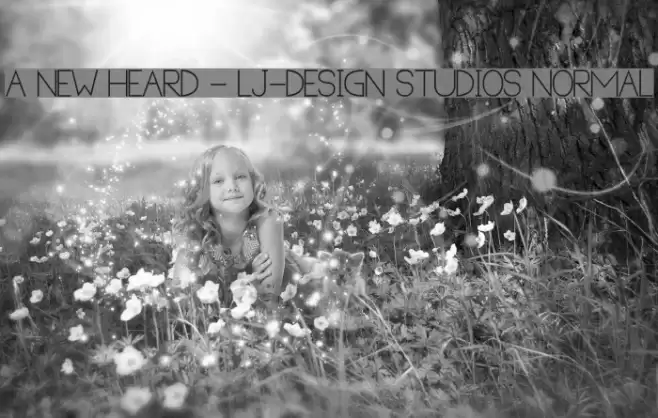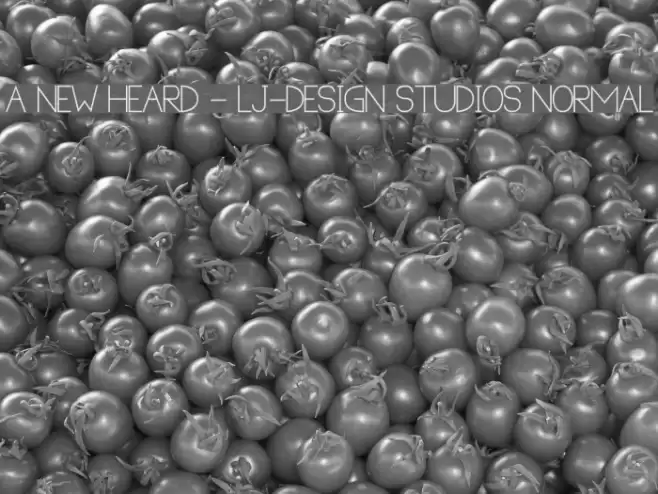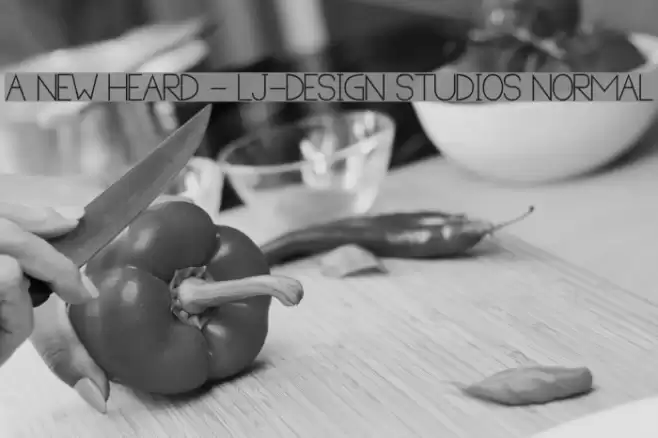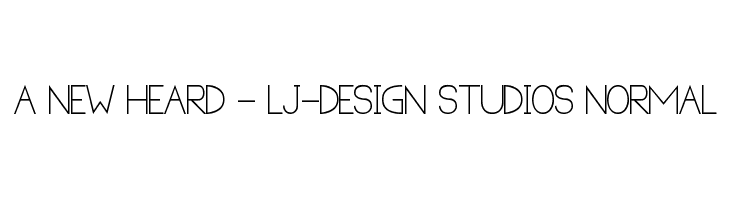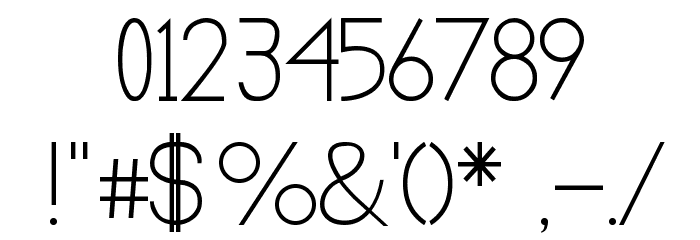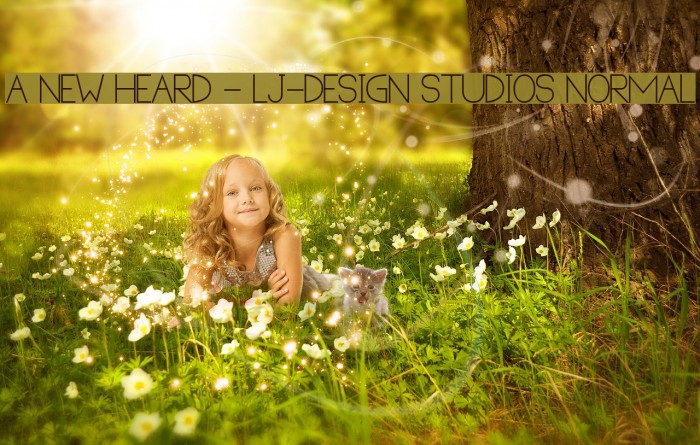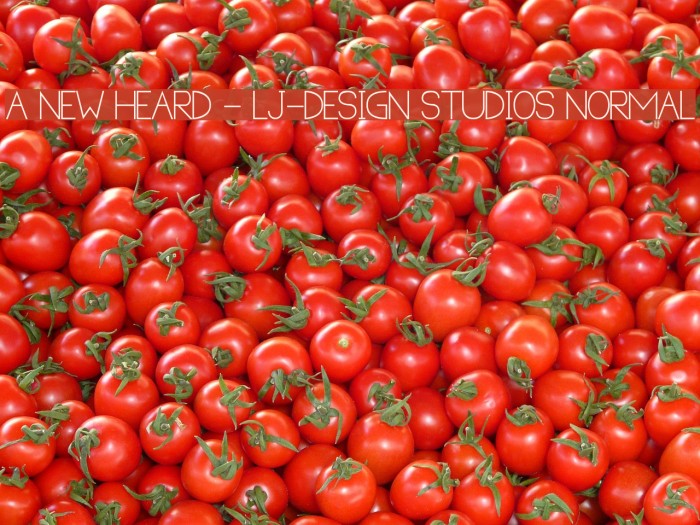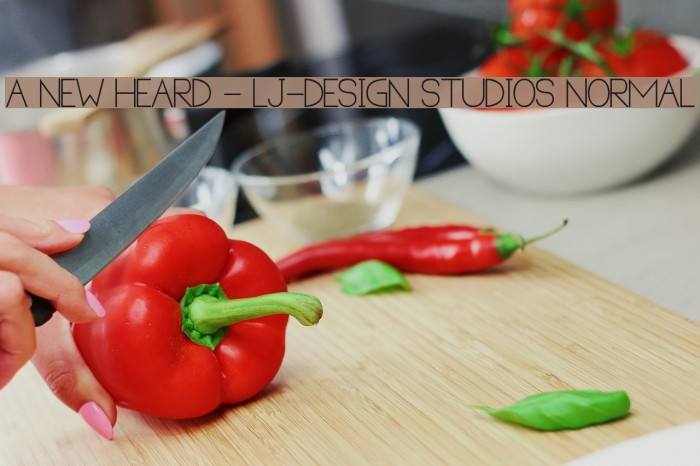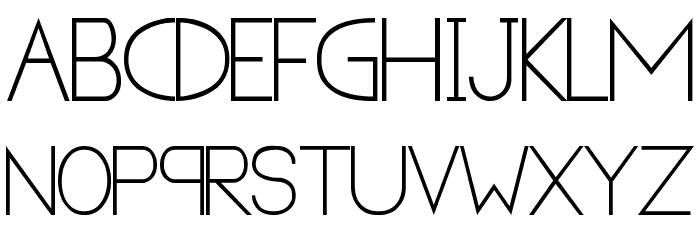
A new Heard - LJ-Design Studios Normal Font
A new Heard - LJ-Design Studios Normal Description
This font features a modern and geometric design with clean, straight lines and sharp angles. The characters are constructed with a consistent stroke width, giving it a uniform appearance. The uppercase letters have a distinctive style, with some characters like 'A', 'B', and 'R' incorporating unique shapes that add a creative flair. The numbers and special characters maintain the same geometric aesthetic, ensuring a cohesive look across all elements. The overall design is minimalistic yet striking, making it suitable for contemporary projects.
A modern, geometric font with clean lines and unique character shapes from Uncategorized fonts.
- Proposed Projects: Ideal for branding, logos, headlines, and modern design projects that require a clean and contemporary look.